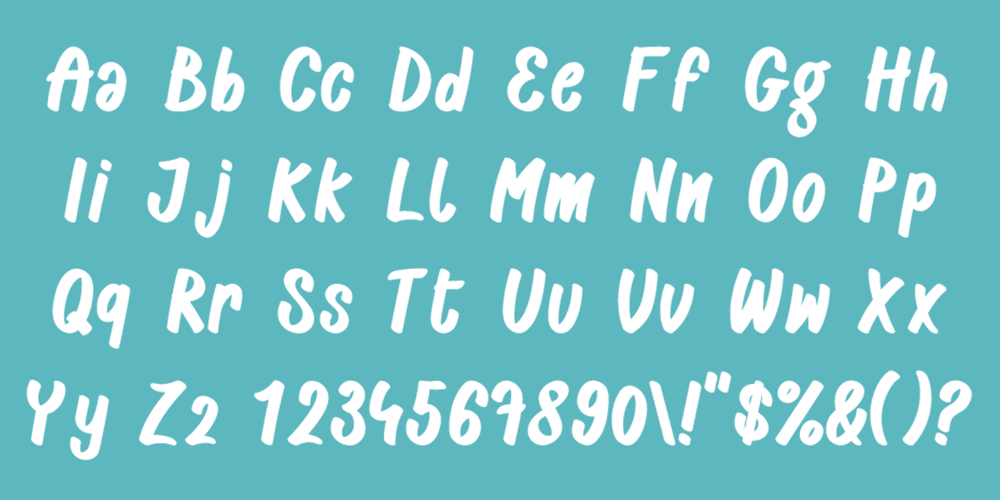
Casper Marker Font Family was designed by Roberto Sofi and published by Biroakakarati. Casper Marker contains 1 styles and family package options. Casper Marker is a script that simulates writing with a marker and has a thick stroke, which is excellent for titles and large text. It was born as a font in block letters, but here it is in a minuscule version with numbers and glyphs. Casper Marker has a fresh and modern style, leaning a bit to the right which gives it dynamism and feeling with reading.